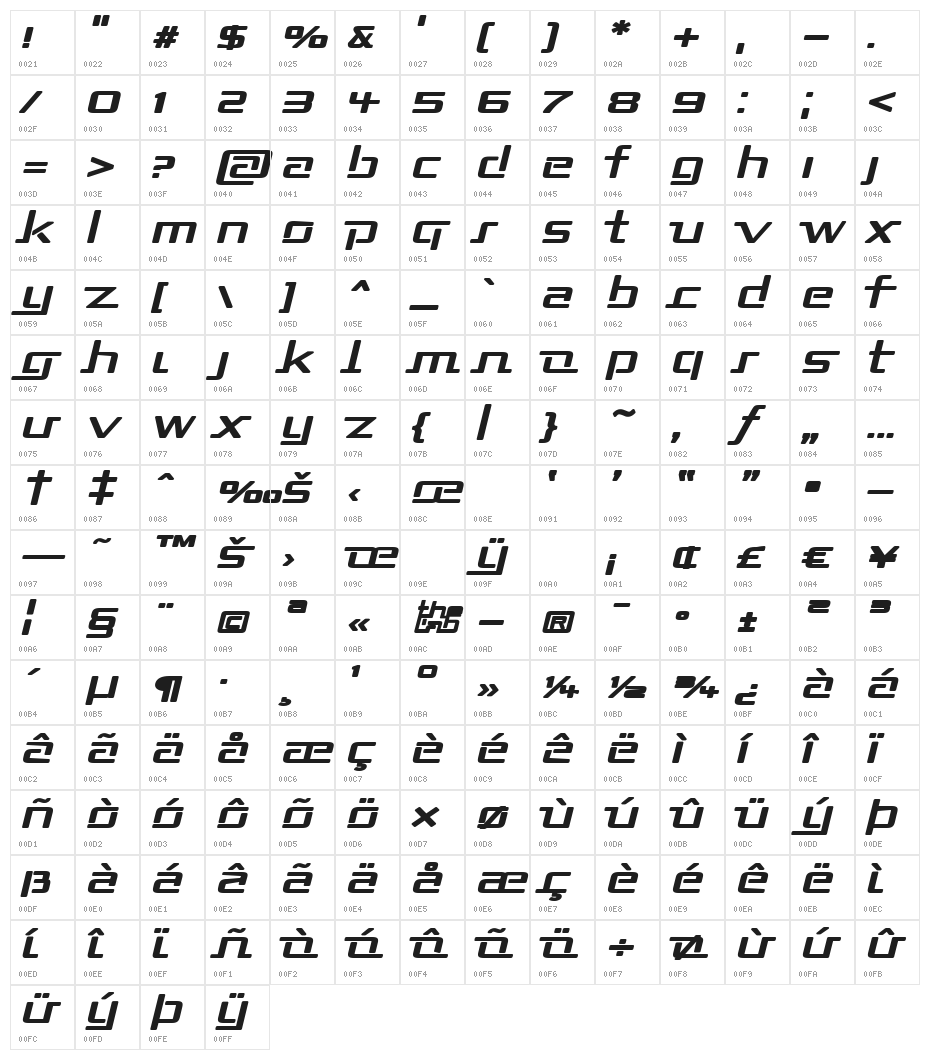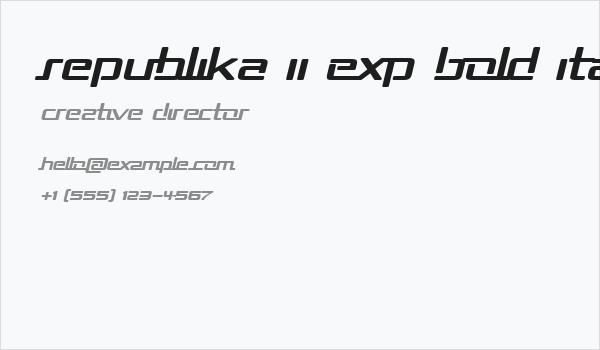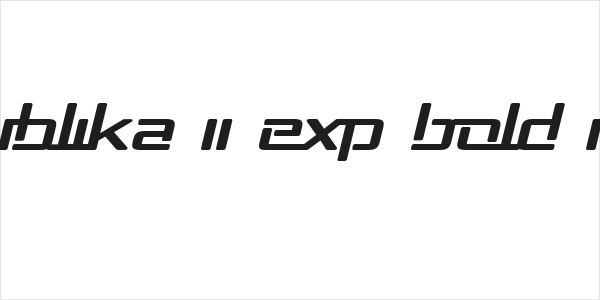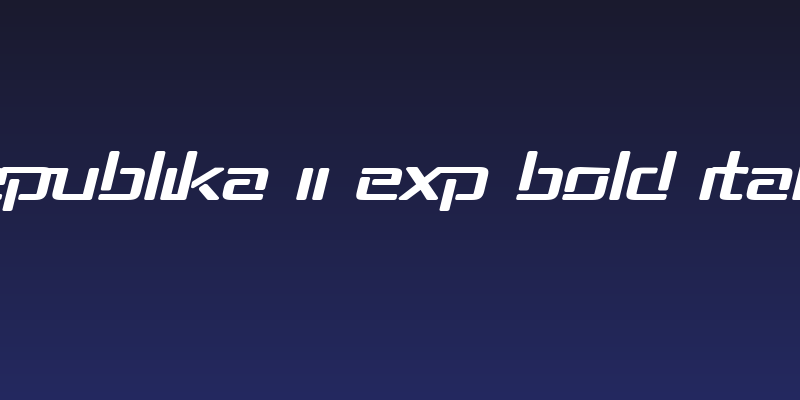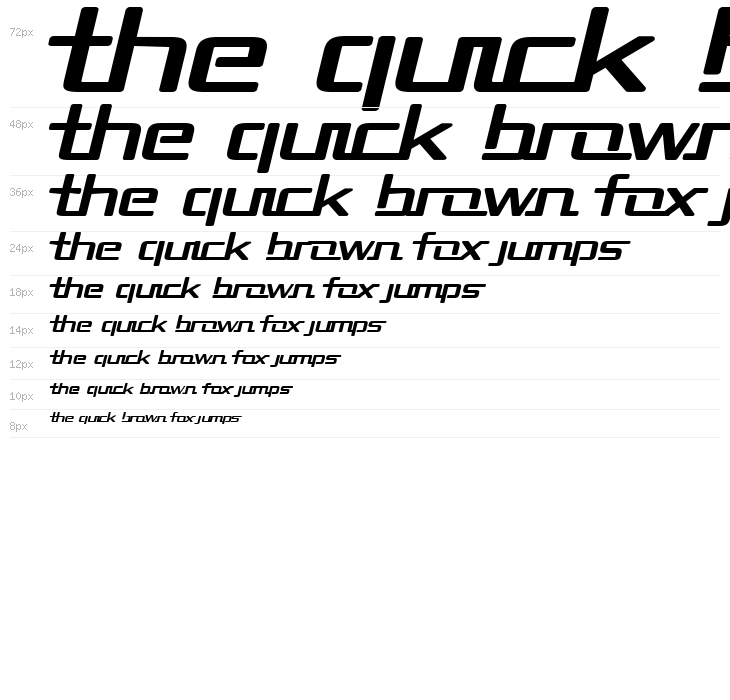
Republika II Exp Bold Italic Font
Republika II Exp Bold Italic Description
This font features a bold and italicized style with a futuristic and geometric design. The characters are slightly slanted, giving a sense of motion and dynamism. The strokes are consistent in width, providing a uniform appearance across all characters. The font includes both uppercase and lowercase letters, numerals, and a variety of special characters. Its clean lines and modern aesthetic make it suitable for projects that require a contemporary and sleek look.
Use CaseHeadlines, Logos, Branding
Proposed ProjectsIdeal for tech branding, modern advertising, and futuristic design projects.